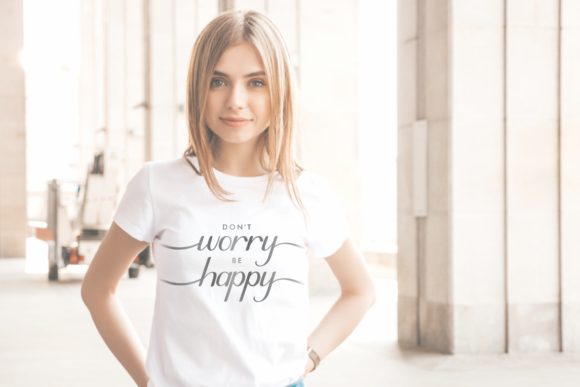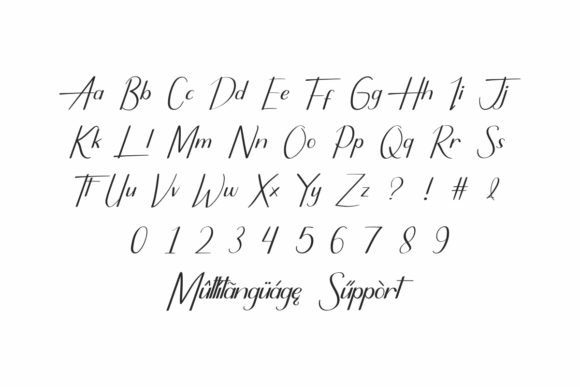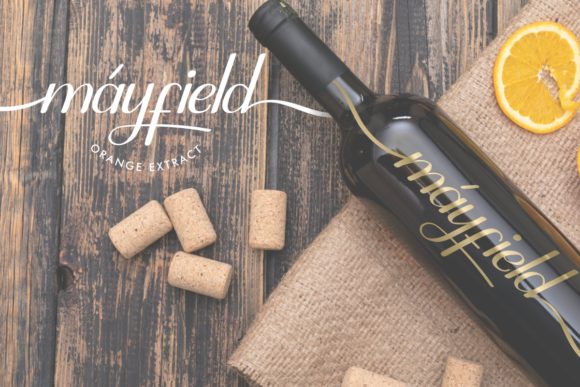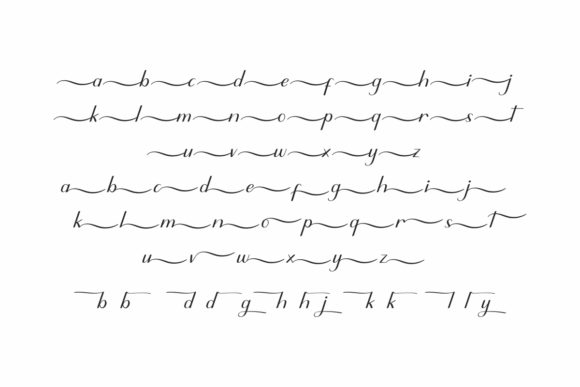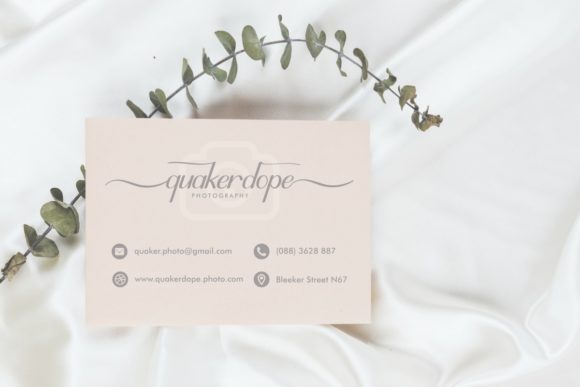
Pretty Real Font
About Pretty Real Font
Pretty Real is a charming and casual handwritten font that adds a touch of authenticity and warmth to your designs. With its natural and organic letterforms, this font exudes a sense of ease and approachability. Whether you’re creating greeting cards, social media posts, logos, or any other design project, Pretty Real can bring a unique and timeless style to your work.
The versatility of Pretty Real lies in its ability to adapt to various design themes and contexts. It can be used for playful and lighthearted designs, as well as for more relaxed and informal projects. The font’s natural flow and relaxed vibe make it perfect for creating a genuine and personal touch in your designs.
With its PUA (Private Use Area) encoding, Pretty Real allows easy access to all of its glyphs and swashes. This means you can effortlessly explore and utilize the different stylistic alternates, ligatures, and swashes available in the font. Adding decorative elements and extra flair to your designs becomes a breeze with Pretty Real’s PUA encoding.
Embrace the casual and timeless style of Pretty Real to create visually stunning designs that capture the essence of authenticity. Its PUA encoding ensures easy access to all the glyphs and swashes, making it a versatile tool for adding a personal touch to your creative projects. Fall in love with Pretty Real and let its charm and character enhance your designs.